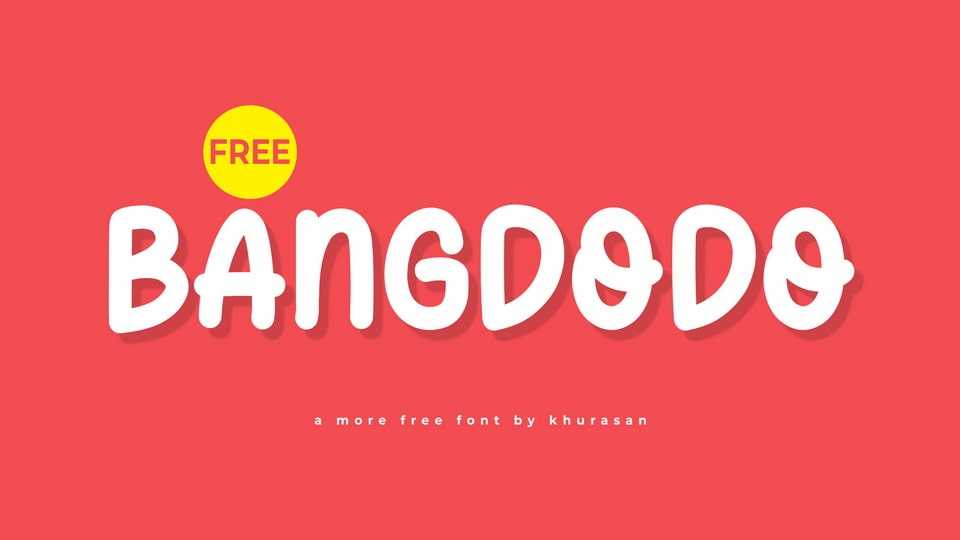
Download Bangdodo font, a playful and quirky handwritten comic typeface bursting with personality and fun, perfect to add a sense of spontaneity and whimsy.